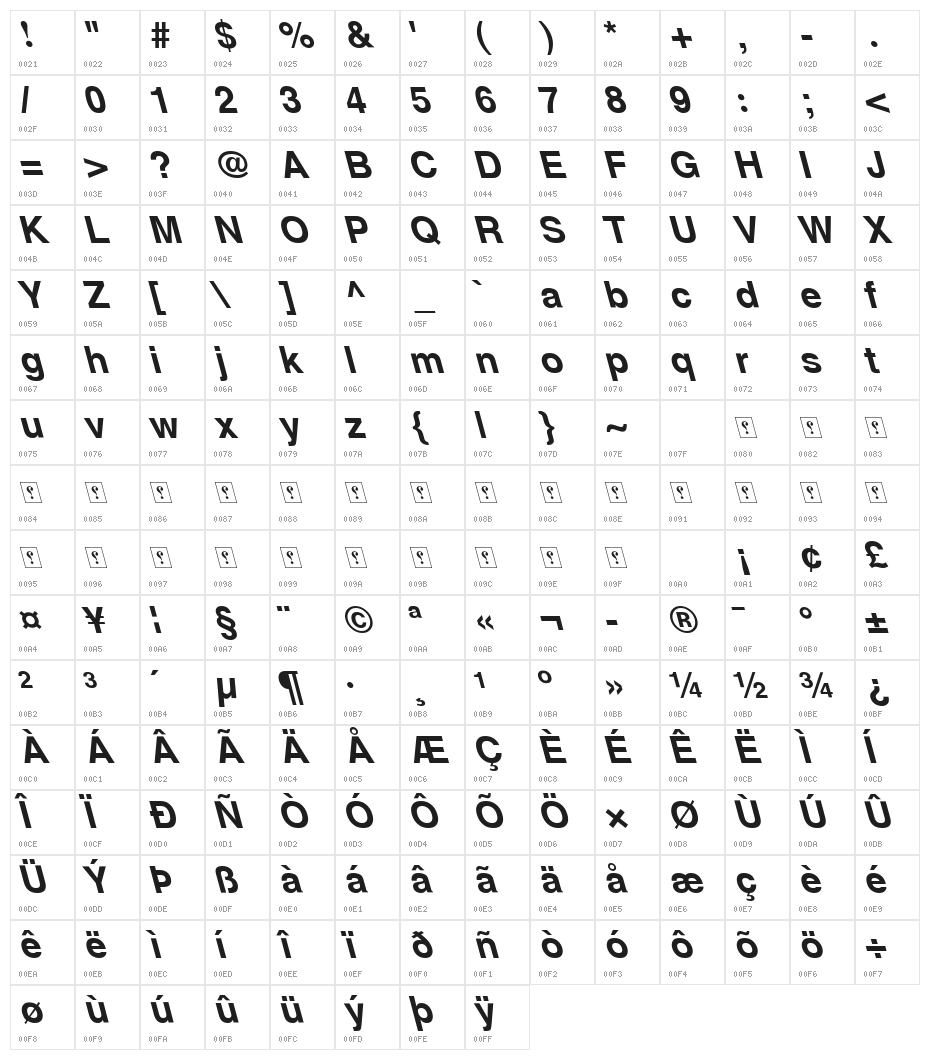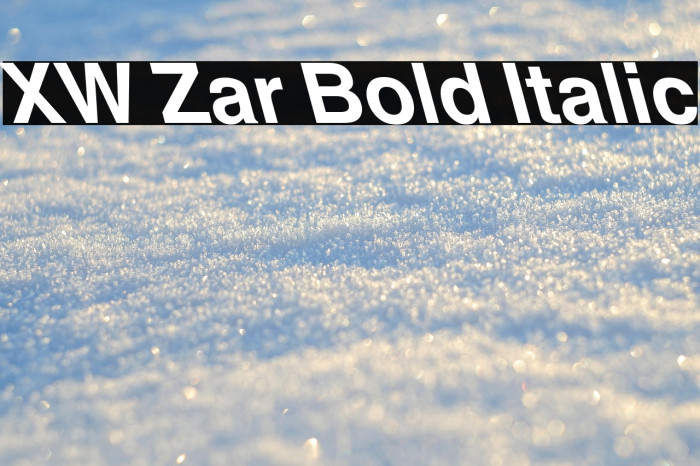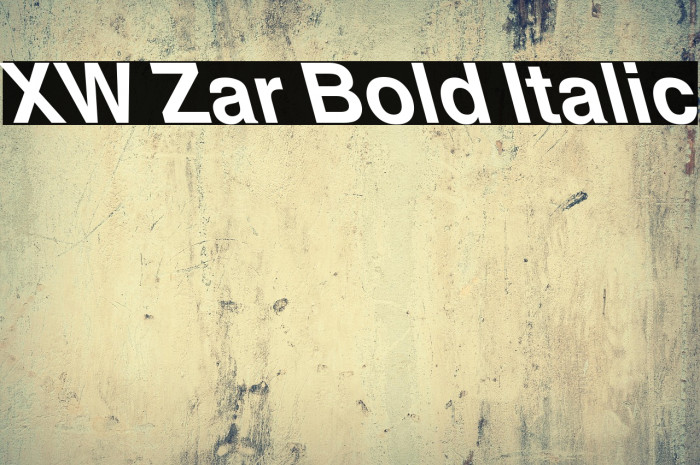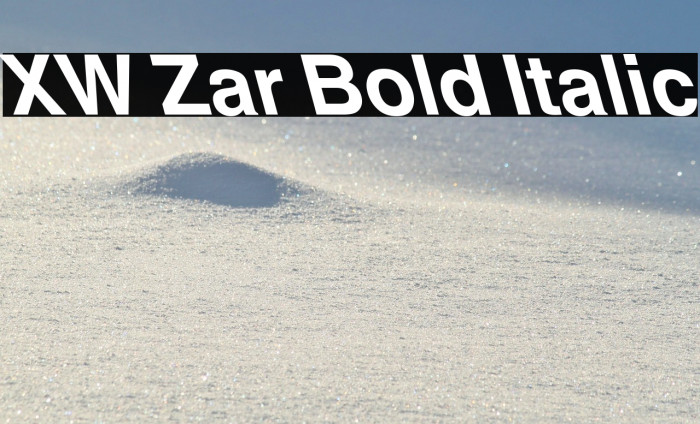
XW Zar Bold Italic Font
XW Zar Bold Italic Description
This font exhibits a bold and italicized style, characterized by its strong and assertive presence. The uppercase and lowercase letters are designed with a consistent stroke weight, providing a uniform appearance across the alphabet. The numerals are clear and easily distinguishable, maintaining the same boldness as the letters. Special characters are well-integrated, ensuring versatility in various types of text. The italic slant adds a dynamic and modern touch, making it suitable for attention-grabbing headlines or impactful statements. The overall design is clean and straightforward, with a focus on readability and visual impact.
Use CaseHeadlines, Logos, Advertising
Proposed ProjectsIdeal for branding, advertising, headlines, and editorial design projects.